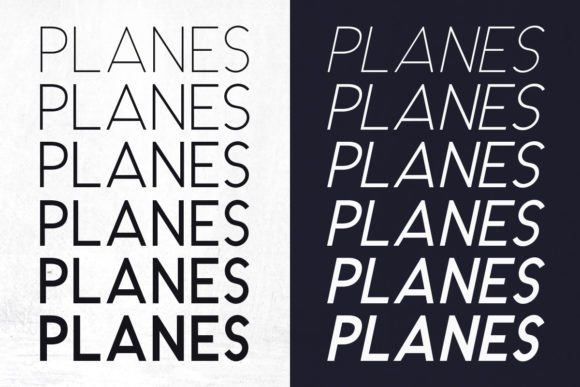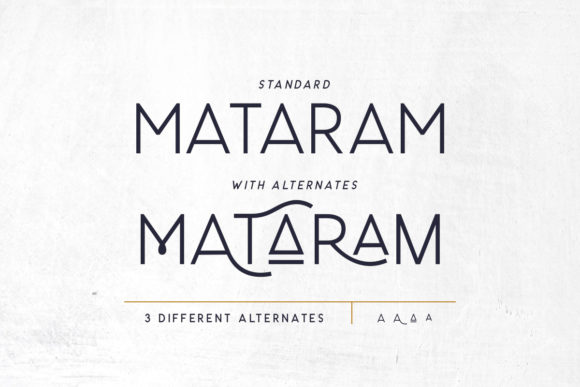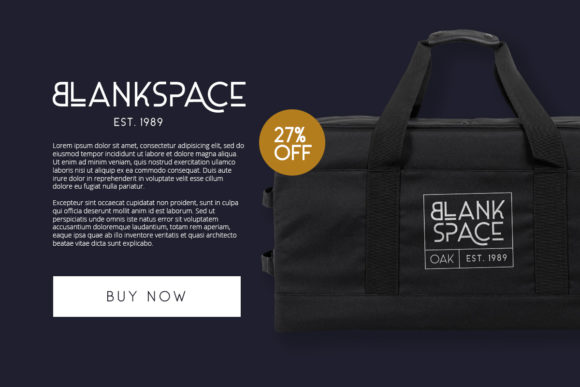
Carrol Family Font
Carrol is a classic and modern sans family. The 16 includes styles give you the opportunity to create multiple unique designs, every time you use it!This classic sans serif fits in any project. You can use it for logos, quotes, headings, posters, and much more!